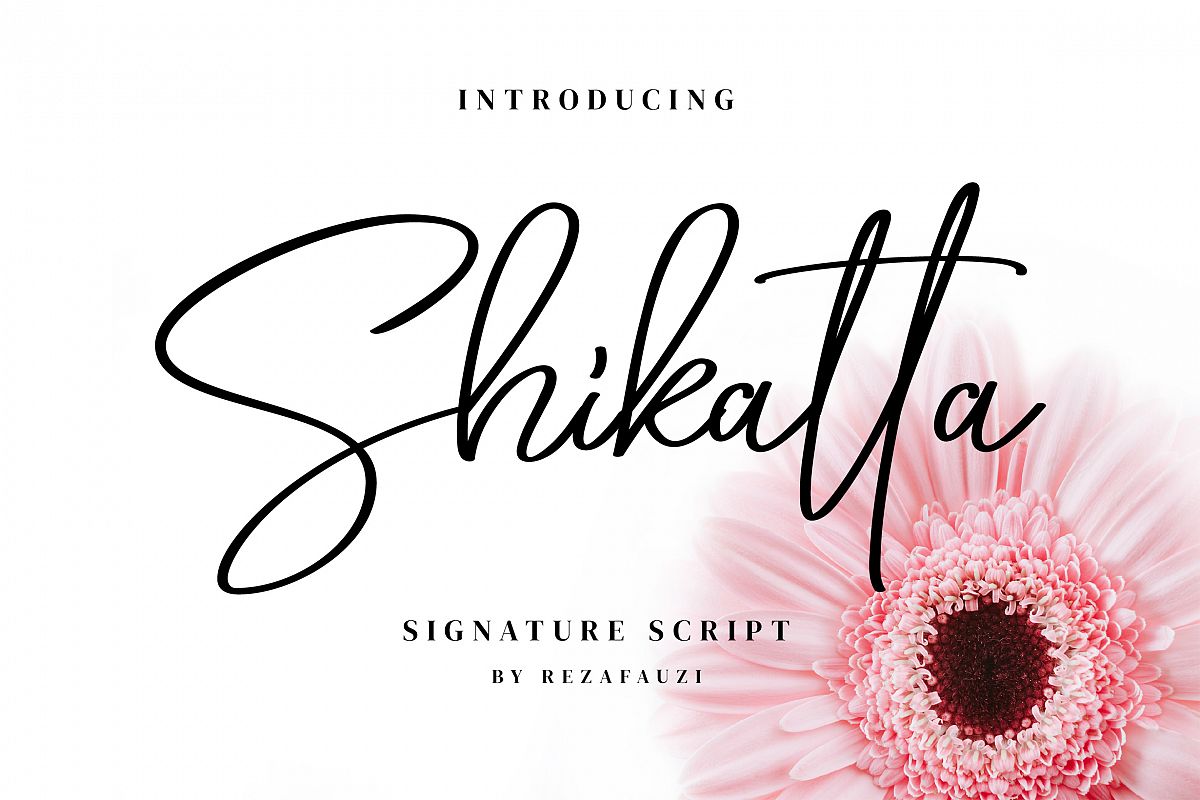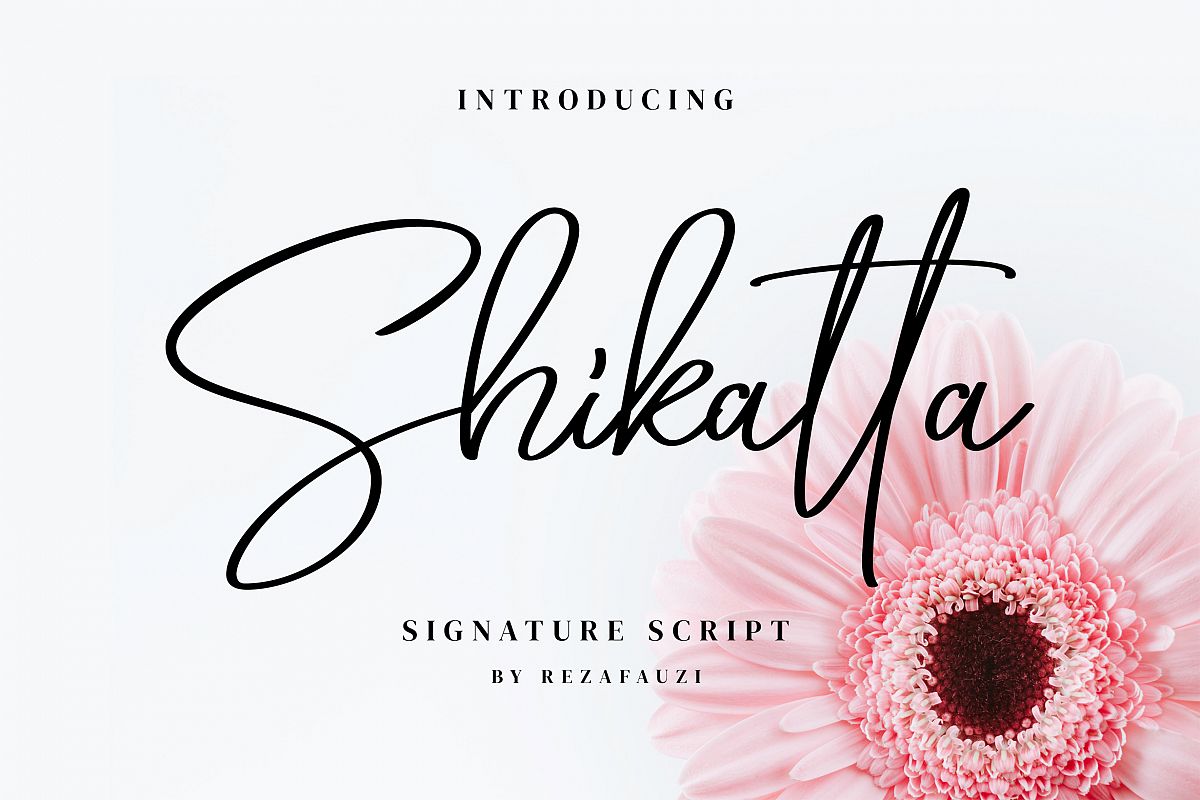
Shikatta - Signature Font
Shikatta
Shikatta is a beauty signature script font crafted very carefully. Shikatta is perfect use for a logo for branding, typography design, product packaging, invitation, quotes, t-shirt design, label poster, special events and anything that need handwriting taste.
Feature :
- Ton of glyphs ( include Uppercase, Lowercase, Numerals, Punctuations & Ligatures )
- Multilingual Language
Multilingual :